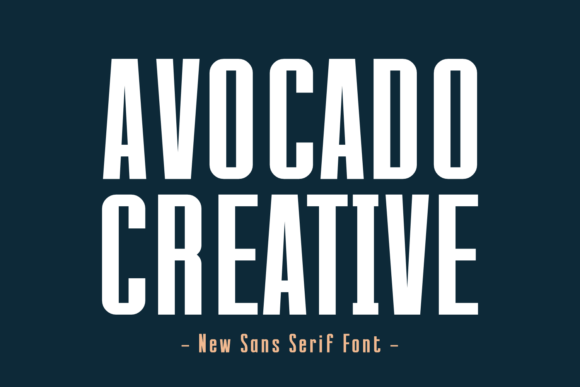
When Creativity Meets Style: Unlocking the Potential of Avocado Creative Font
You’ve finally landed that dream design project – a fashion brand looking to make a bold statement with its new campaign. You’re brainstorming ideas, pouring over inspiration, and scouring the web for the perfect font to bring your vision to life. And then, it hits you – the perfect combination of style, sophistication, and edge that will elevate your design to the next level.
Enter the Avocado Creative Font, a modern sans serif font designed to make a lasting impression. This versatile font is perfect for fashion branding, magazines, and corporate identity projects that demand a bold, contemporary feel. With its clean lines, subtle variations in stroke width, and elegant curves, Avocado Creative Font is a valuable addition to any designer’s toolkit.
Avocado Creative Font Key Features
- Font Family: Avocado Creative Font, a modern and elegant sans-serif typeface designed for creative projects.
- Unique Characteristics: Features a unique blend of modern and vintage elements, with subtle rounded edges and geometric shapes, giving it a distinctive look.
- Kerning and Glyphs: Includes advanced kerning and a wide range of glyphs, including international characters and symbols, for a polished and professional appearance.
Avocado Creative Font Review
Overall, I’d say Avocado Creative Font is a solid choice for designers looking for a unique and playful font.
- Unique character set: Avocado Creative Font has a distinctive character set that will add a touch of whimsy to your designs.
- Good legibility: Despite its playful nature, Avocado Creative Font is surprisingly easy to read, making it suitable for body text and headings.
- Limited language support: Avocado Creative Font only supports a limited number of languages, which may be a issue for designers working on multilingual projects.
- No bold or italic styles: The font lacks bold and italic styles, which may limit its use in certain design contexts.
- May not be suitable for serious or formal designs: Avocado Creative Font is best suited for playful or creative projects, and may not be the best choice for more formal or serious designs.
Avocado Creative Font is a fun and quirky font that’s perfect for designers looking to add some personality to their projects. While it may have some limitations, it’s a great choice for playful or creative designs. Just be aware of its limitations and use it accordingly.
Tips for Getting the Most Out of Avocado Creative Font
Use Avocado Creative Font for creative projects that require a unique and playful touch. It’s perfect for social media graphics, advertising materials, and branding materials.
Experiment with different font sizes and styles to create a visually appealing design.
Avocado Creative Font is ideal for:
- Social media graphics
- Advertising materials
- Branding materials
- Infographics
- Menus and brochures
What is the recommended font size for the Avocado Creative Font?
The recommended font size for the Avocado Creative Font varies depending on the application and the desired visual effect. For body text, we recommend using font sizes between 12px and 14px. For headings and titles, you can use font sizes between 18px and 24px. However, feel free to experiment with different font sizes to achieve the desired look and feel for your project.